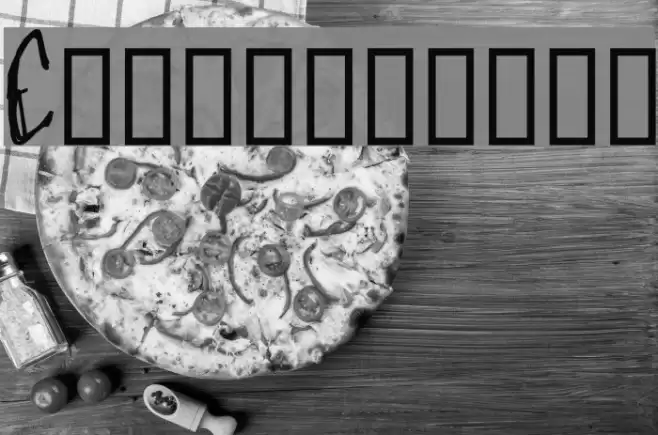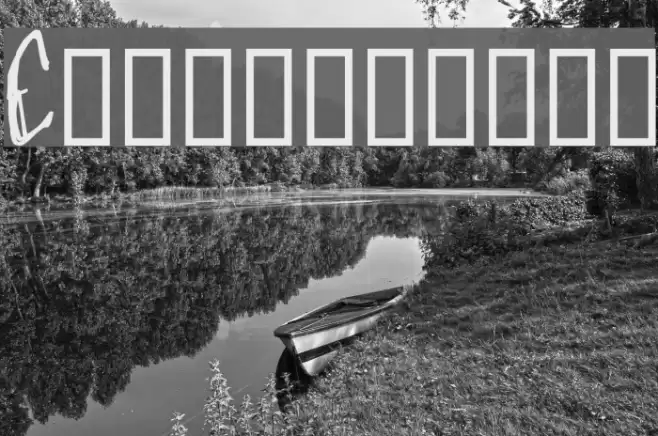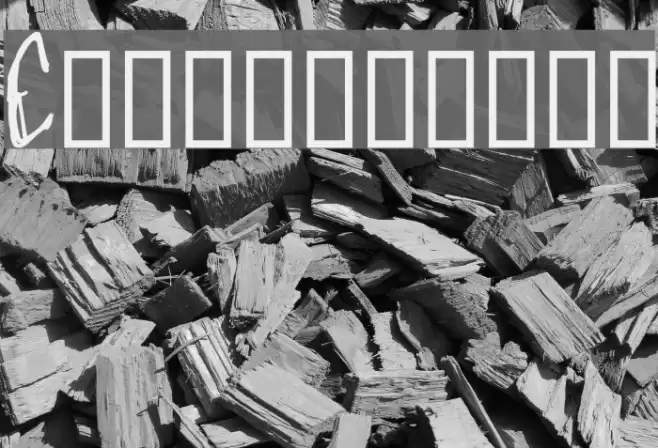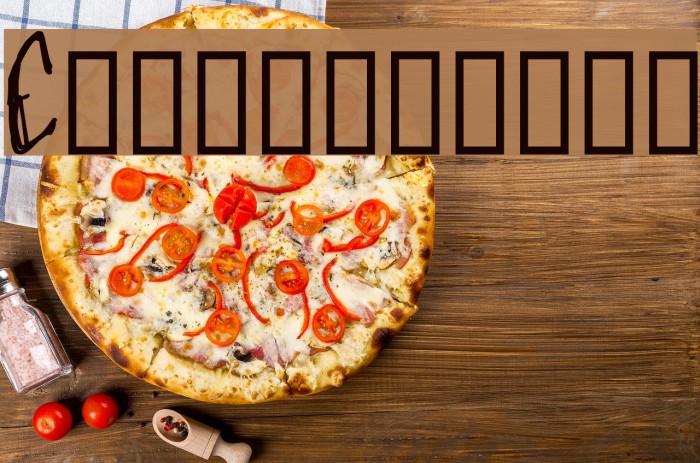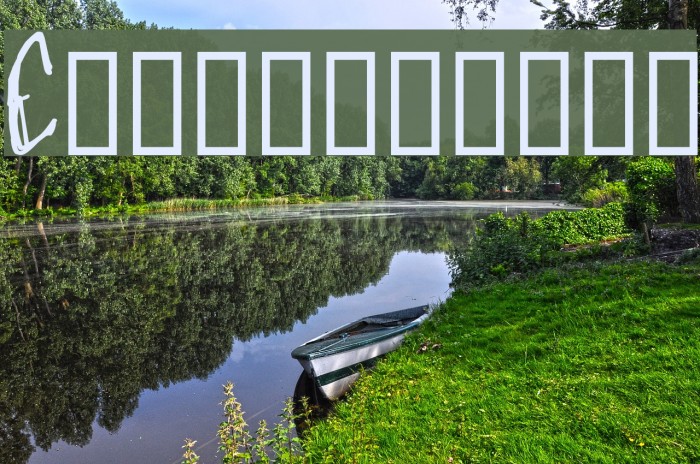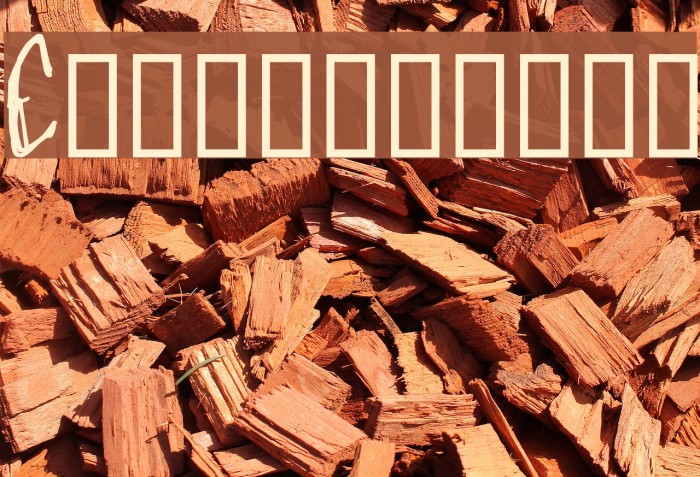
Craptacular Font
Craptacular Description
This font features a chaotic and energetic style, with each letter appearing as if it has been hand-drawn with a rough, sketchy texture. The uppercase letters exhibit a dynamic and irregular form, giving the impression of movement and spontaneity. The strokes are uneven, with varying thicknesses that contribute to a sense of unpredictability and artistic flair. This font lacks lowercase letters and numbers, focusing solely on uppercase characters. It is ideal for projects that require a bold and unconventional aesthetic, such as album covers, posters, or creative branding. The font's unique style makes it stand out, capturing attention with its raw and expressive design.
A chaotic, sketchy uppercase font with dynamic, irregular strokes from Handwritten fonts.
- Proposed Projects: Album covers, posters, creative branding, artistic projects.
- Character Spacing: Wide